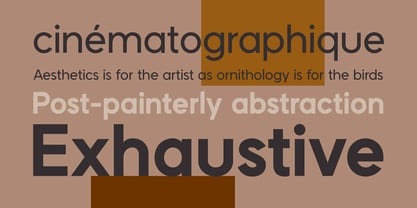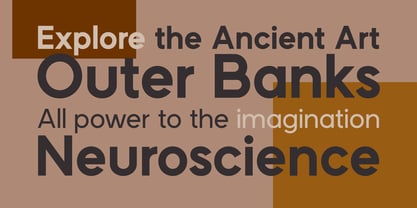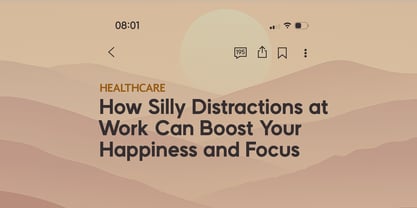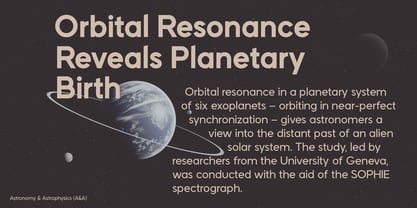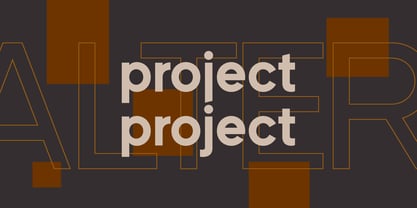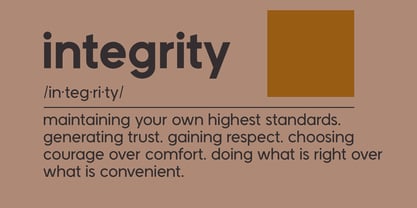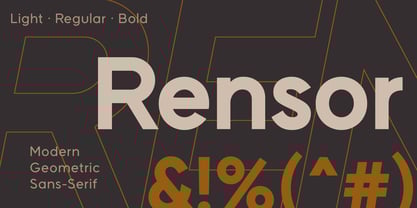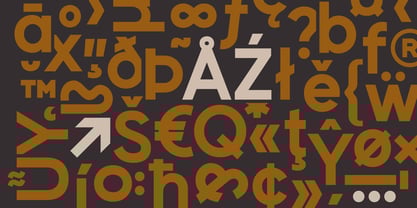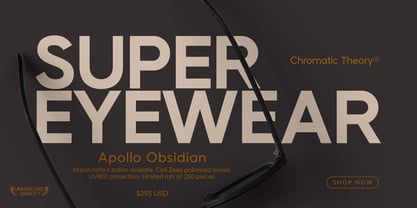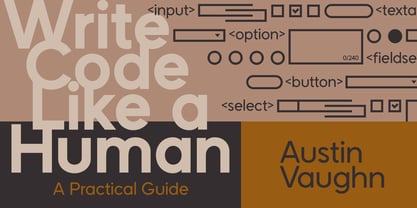
Rensor
by TirionType
The Rensor Font Family was designed by Stanislav Hatznik and published by TirionType. Rensor contains 3 styles and family package options.
Clean, sharp, and effortlessly versatile. Rensor is a contemporary three-weight geometric sans-serif built for designers who need a typeface that works everywhere — without fuss. With its stripped-down forms, perfect proportions and subtle optical corrections, Rensor feels both confidently modern and surprisingly neutral. It disappears beautifully into long text when you want it quiet, yet steps forward with authority in headlines, logos and branding. Perfect for Logotypes & wordmarks Branding & visual identity Editorial design (magazines, books, covers) Posters, packaging, labels Websites & digital interfaces Advertising & social media What’s included 3 weights: Light · Regular · Bold 400+ glyphs per weight Basic Latin + Extended Latin language support Standard ligatures: fi · ffi Stylistic alternates Rensor doesn’t shout — it just works. Impeccably.